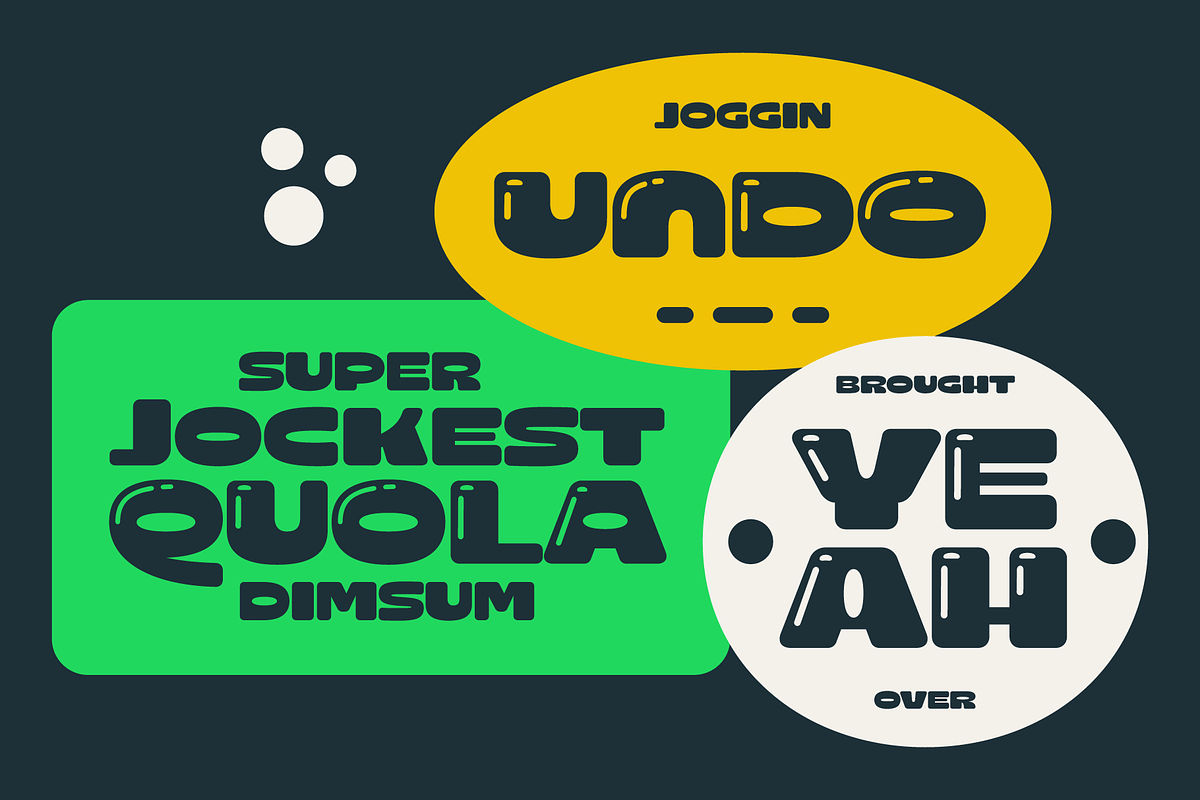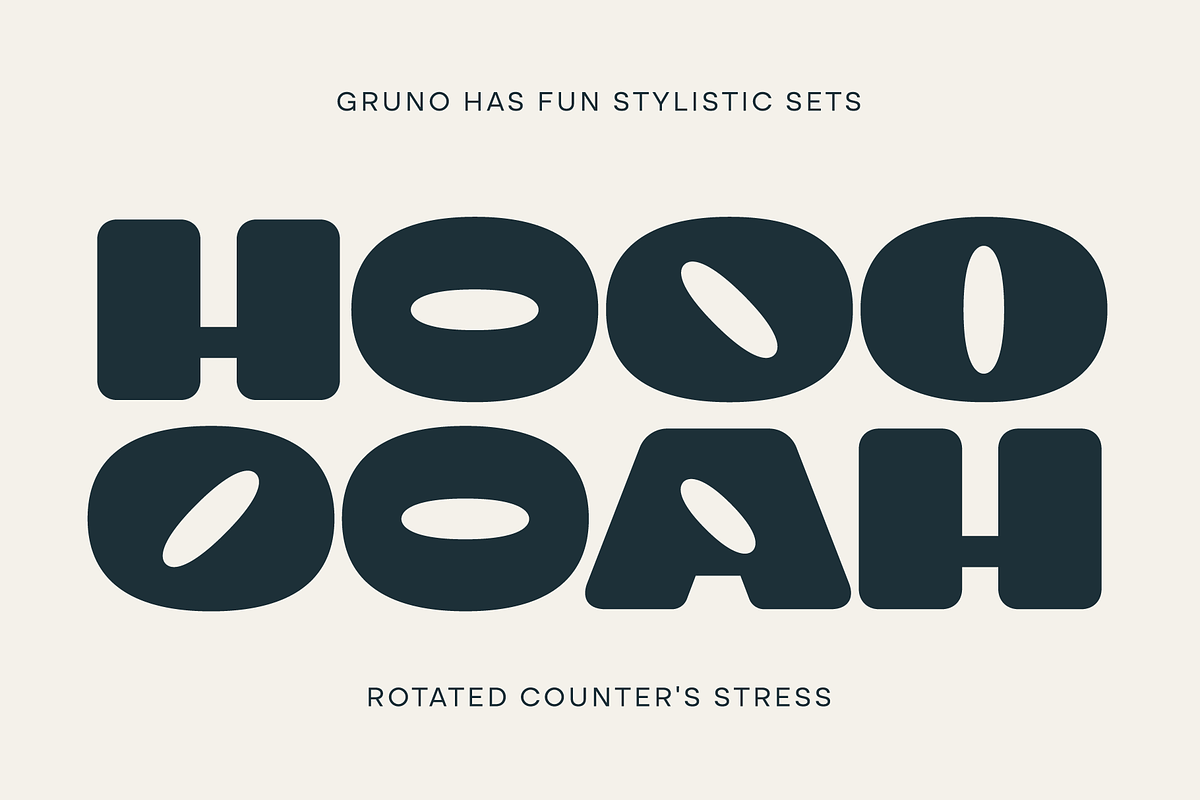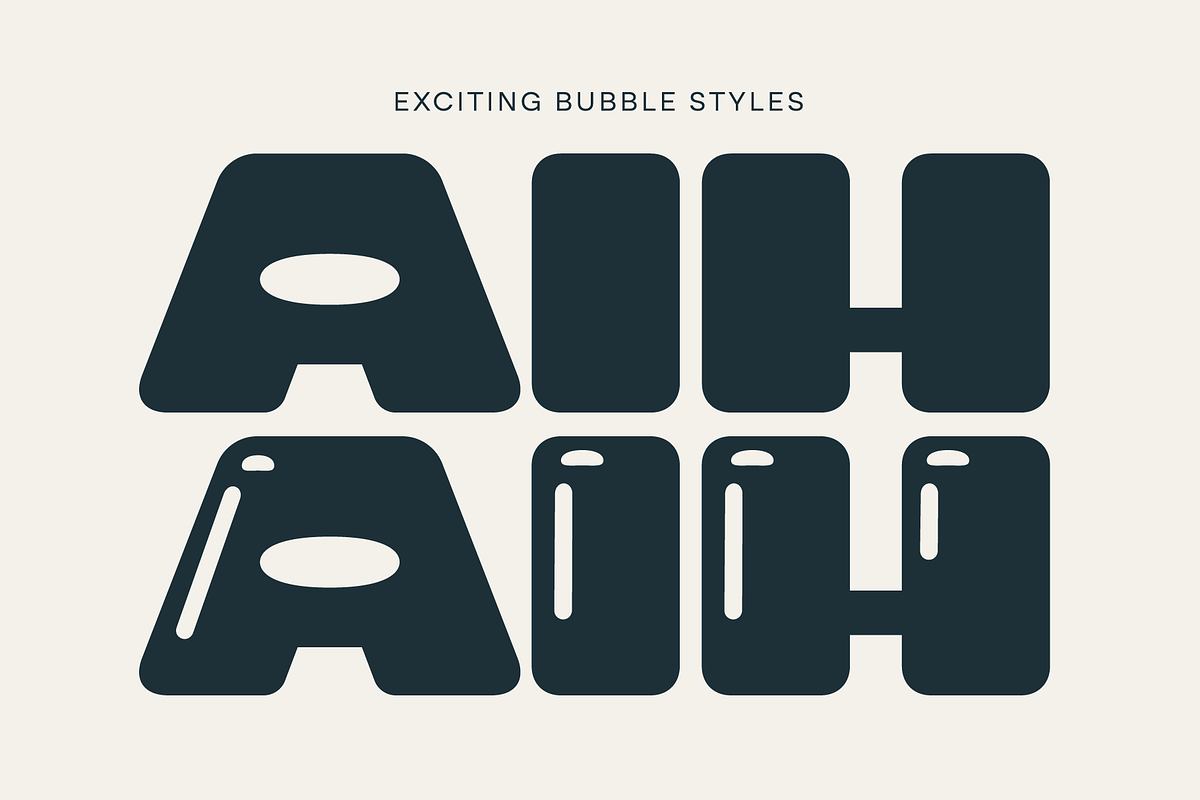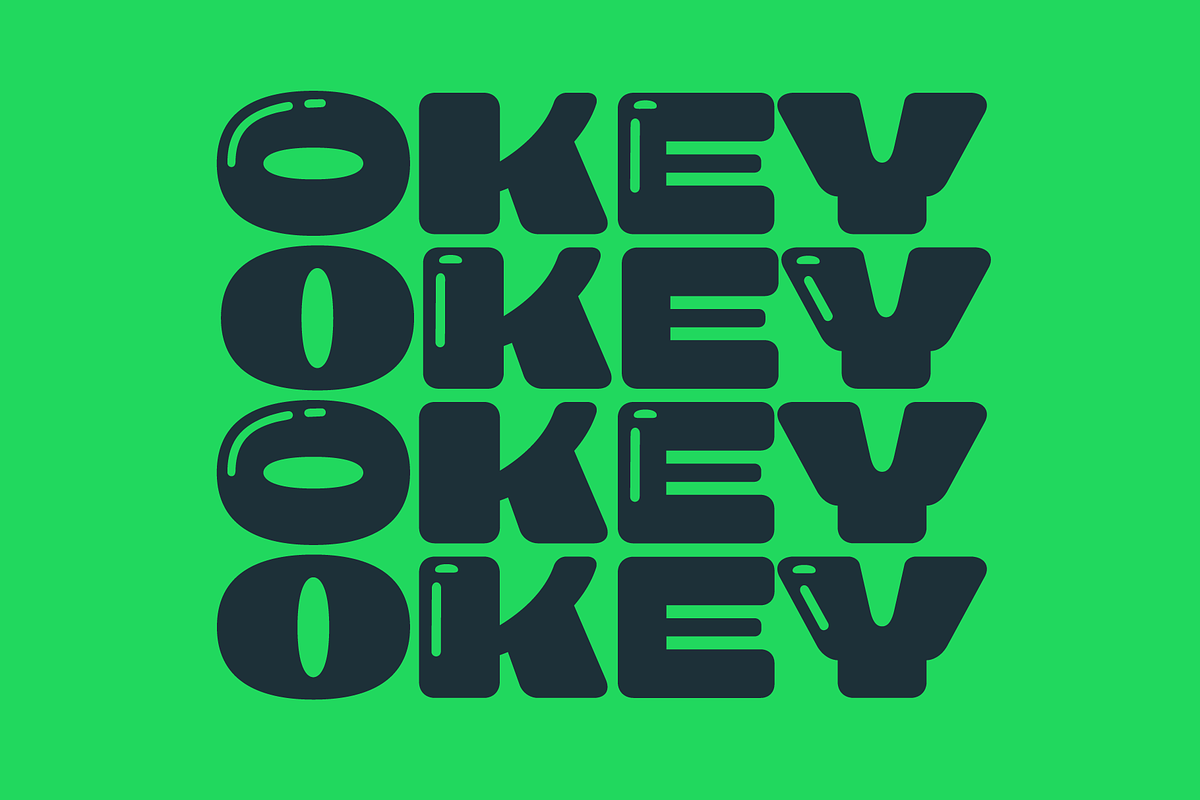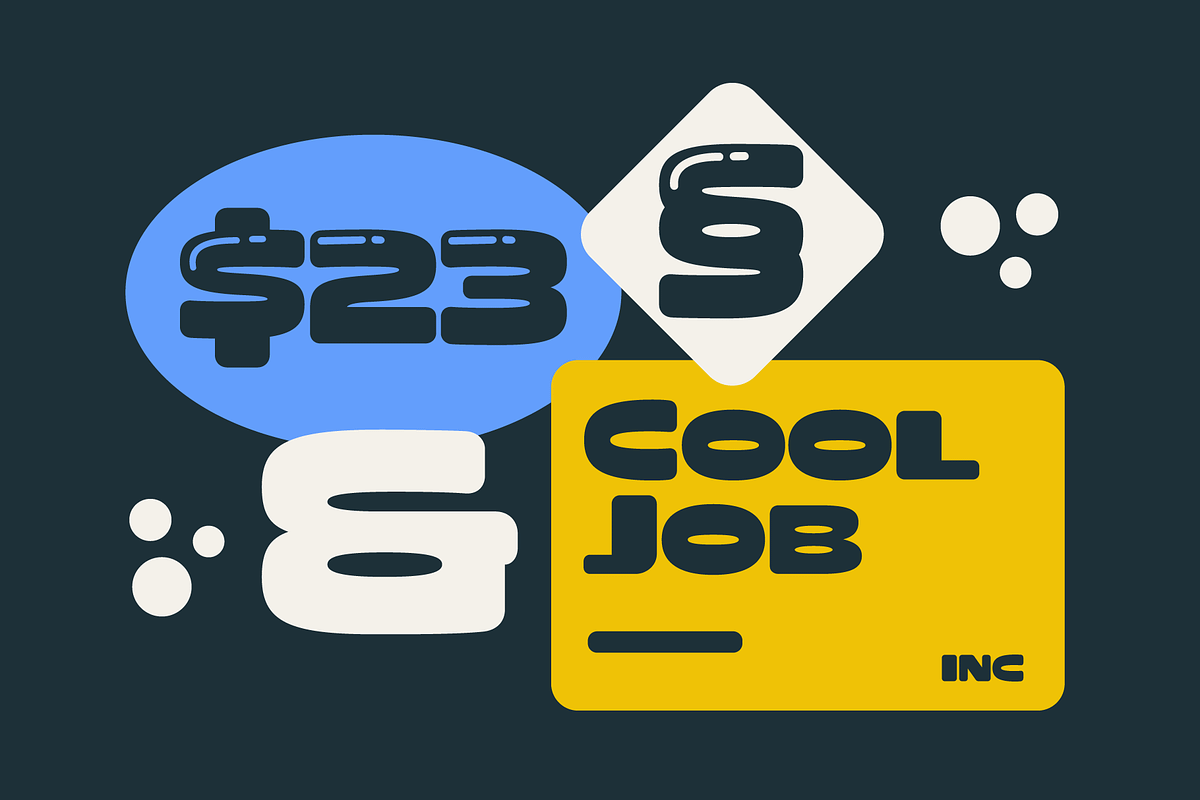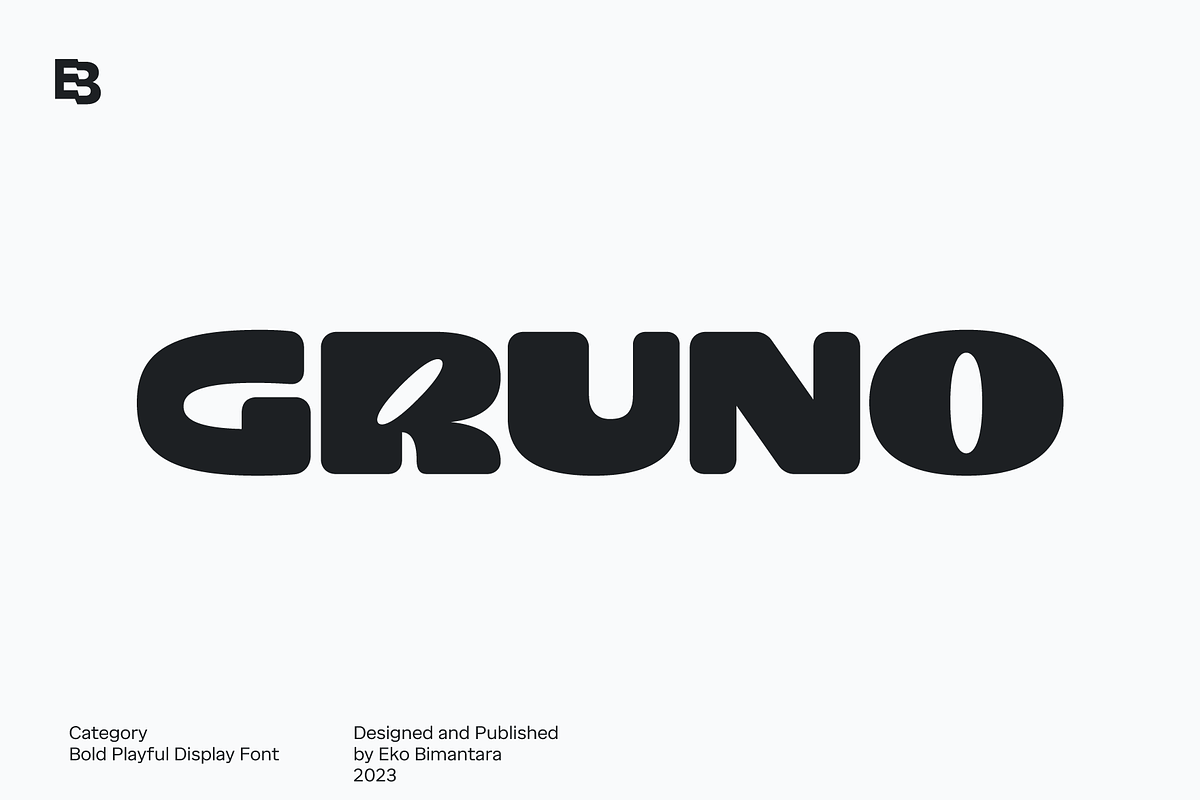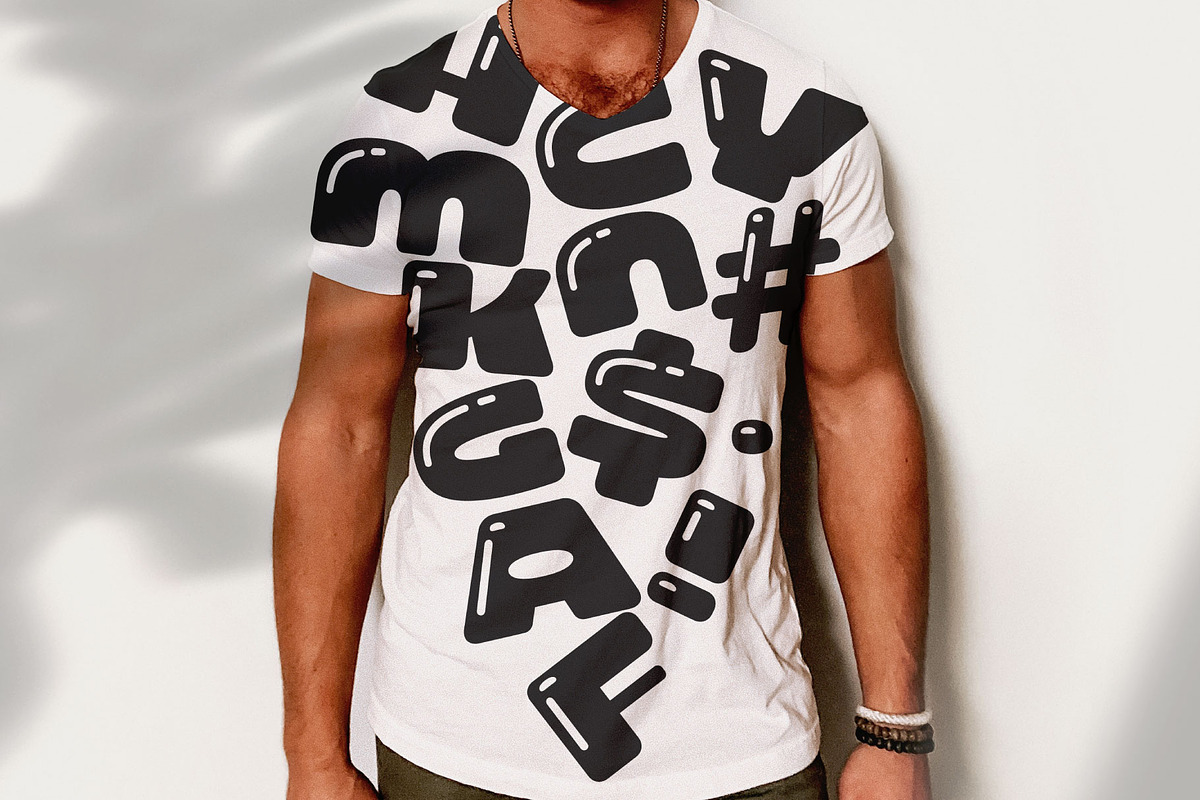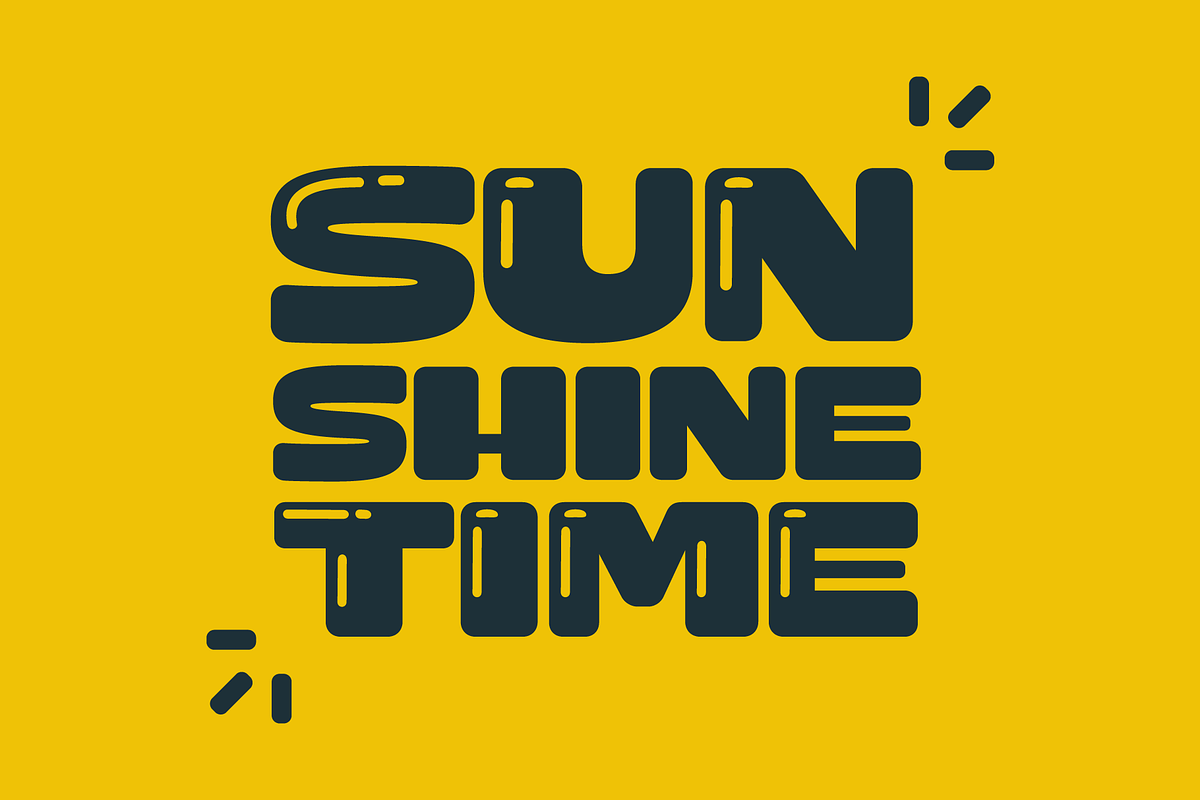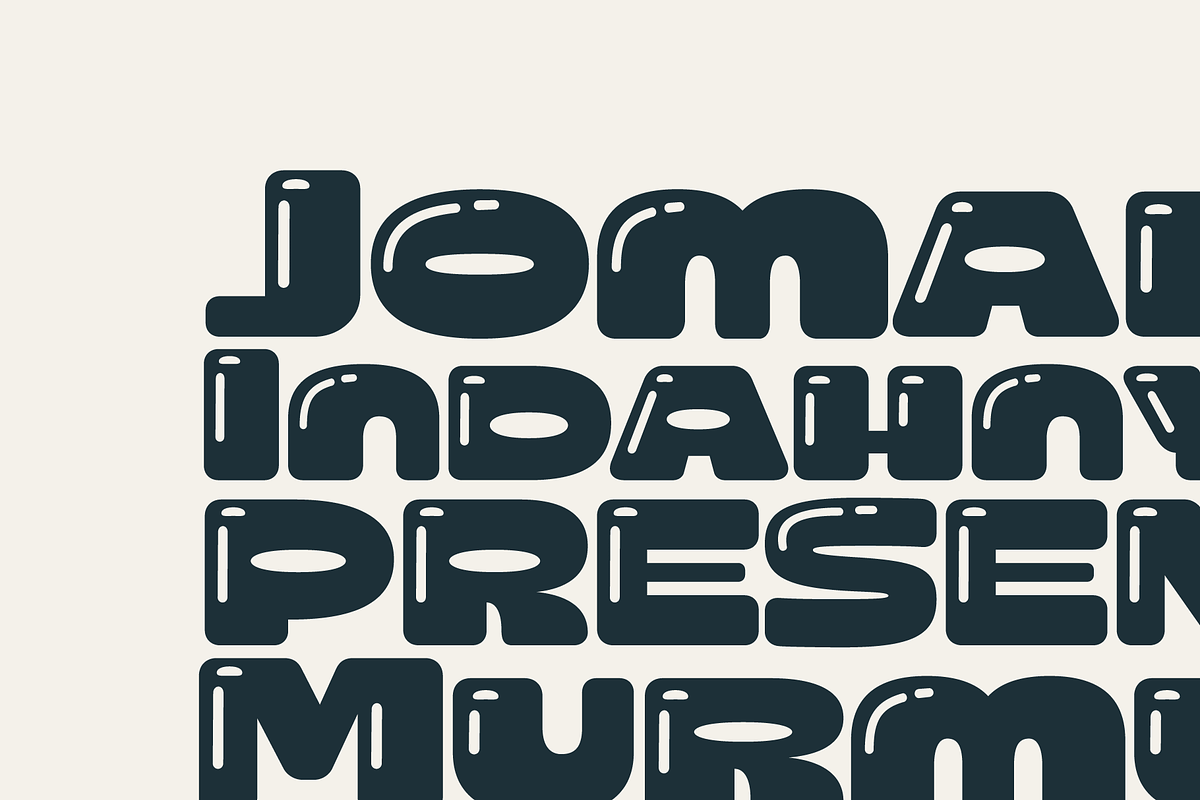
Gruno; Bold Display Font
Gruno is a bold and playful display font that adds a fun and vibrant touch to any design project. With its soft and rounded letterforms, Gruno exudes a unique and pop characteristic that is sure to capture attention. This font family offers two distinct styles: Gruno Normal and Gruno Bubble. The Bubble style features a light shade effect, reminiscent of a balloon, adding a whimsical and playful element to the font.
Gruno is a versatile font that is perfect for a variety of design purposes. It is an excellent choice for creating eye-catching logos and brands that want to stand out from the crowd. The bold and fun nature of Gruno makes it ideal for large titles, headers, and product packaging, where you want to make a strong visual impact. Whether you’re working on a creative project or designing for a specific purpose, Gruno’s unique style will bring a touch of joy and excitement to your designs.